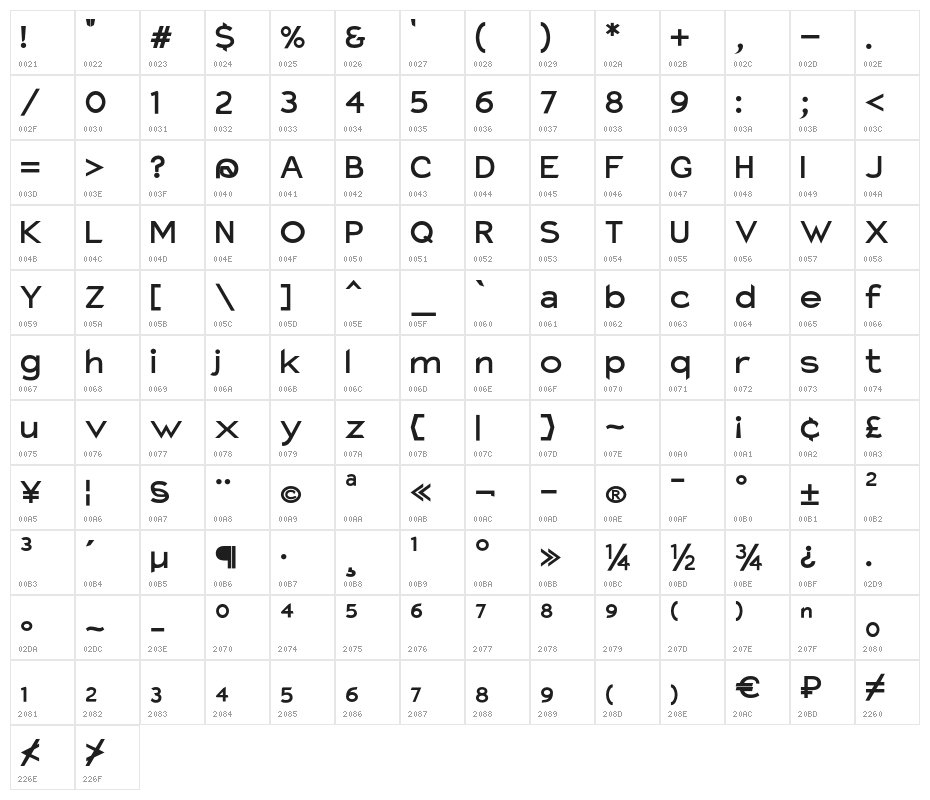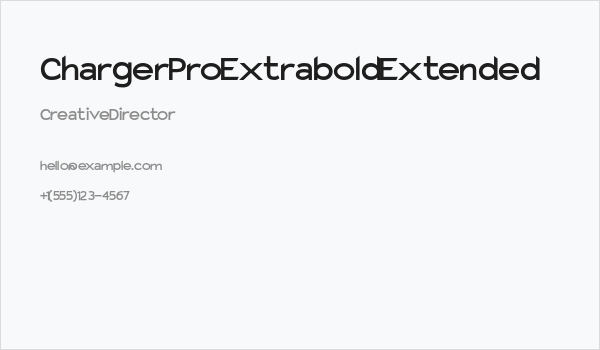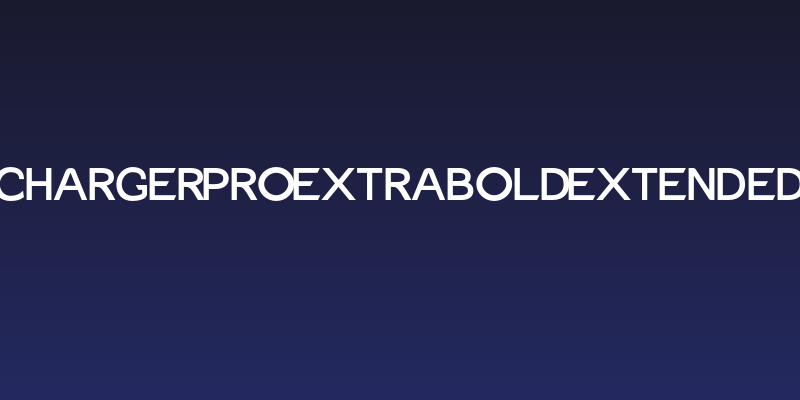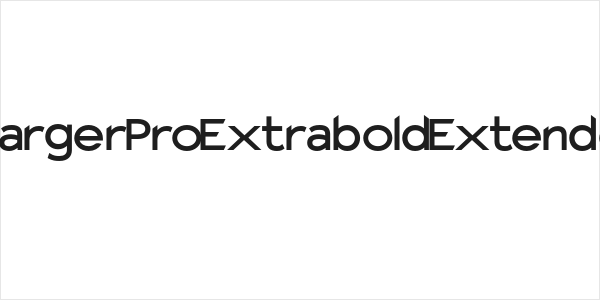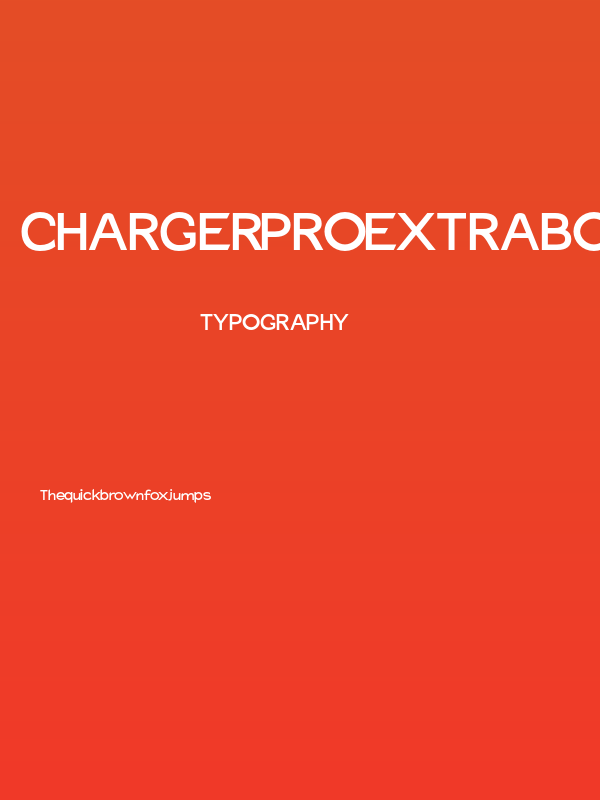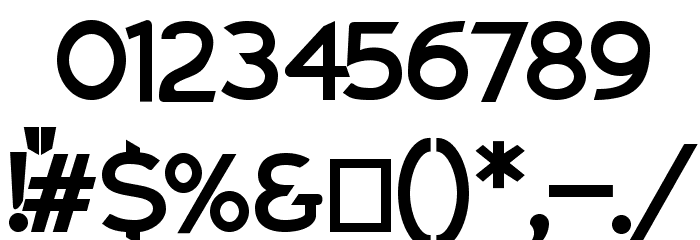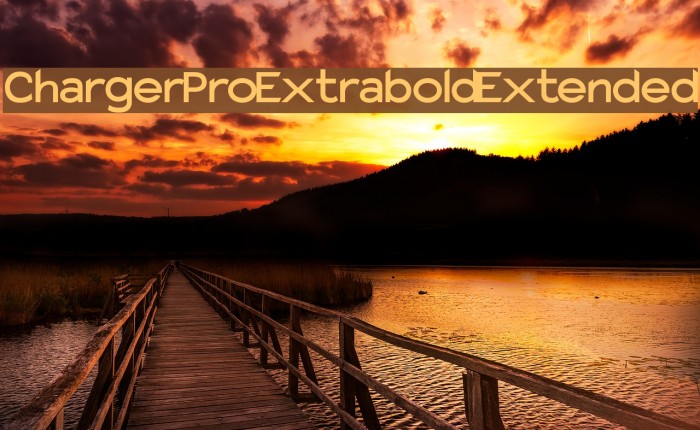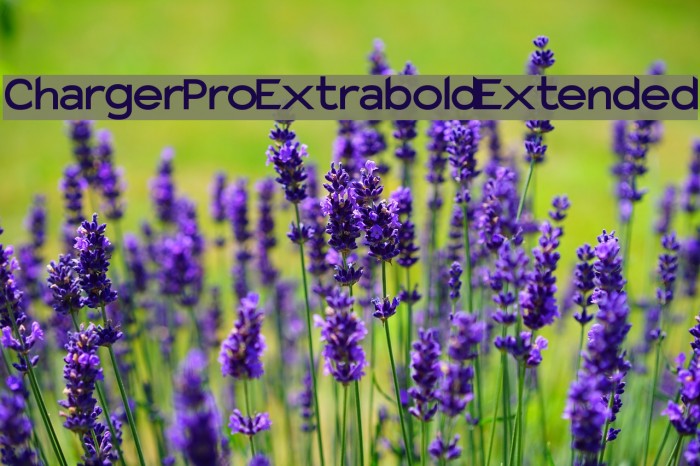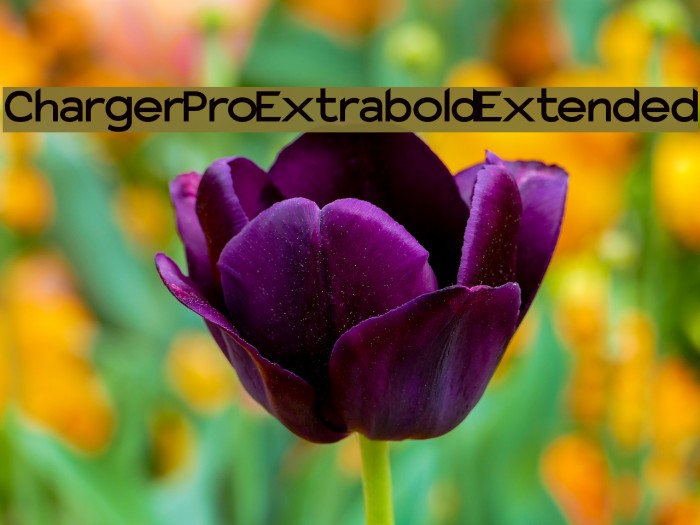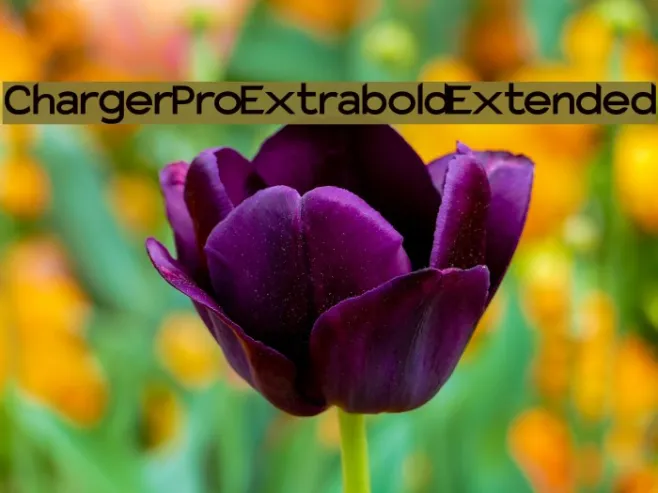
Charger Pro Extrabold Extended Font
Charger Pro Extrabold Extended Description
This font exhibits a bold and extended style, characterized by its thick strokes and wide letterforms. The uppercase and lowercase letters maintain a consistent weight, providing a strong visual impact. The numerals are equally bold, ensuring readability and emphasis. Special characters are designed with the same boldness, making them stand out. The overall appearance is modern and clean, suitable for making a statement in any design. The font's extended width allows for a spacious and open feel, enhancing its legibility.
| Proposed Projects | Ideal for headlines, branding, advertising, and any project requiring a strong visual impact. |